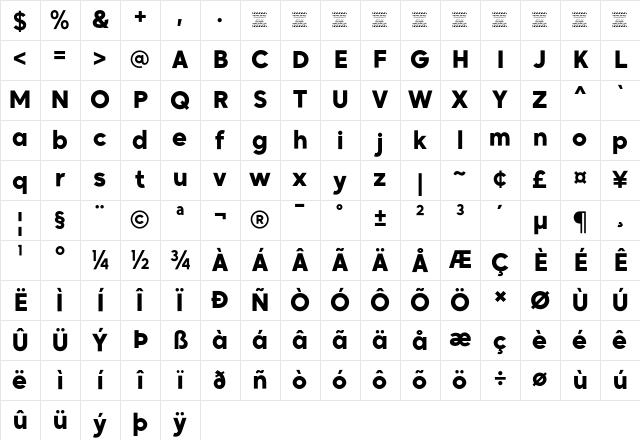
Madani Arabic DEMO Bold Free Font
Madani Arabic DEMO Bold
Foundry: Namela
Designer: Nur Syamsi
Design Context for Madani Arabic DEMO
Madani Arabic DEMO is a composed and adaptable typeface that performs quietly and consistently across a wide range of design contexts. Its bold stroke weight gives it real presence on the page.
Who designed the Madani Arabic DEMO Bold font?